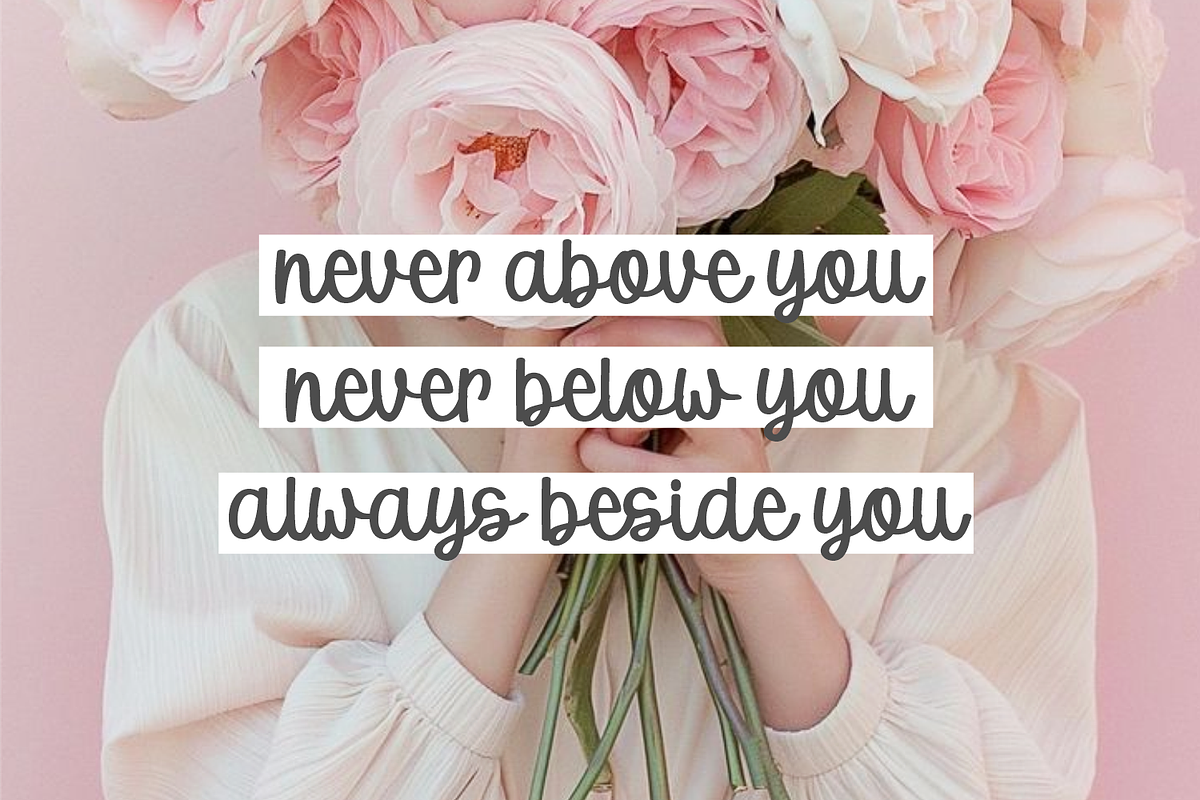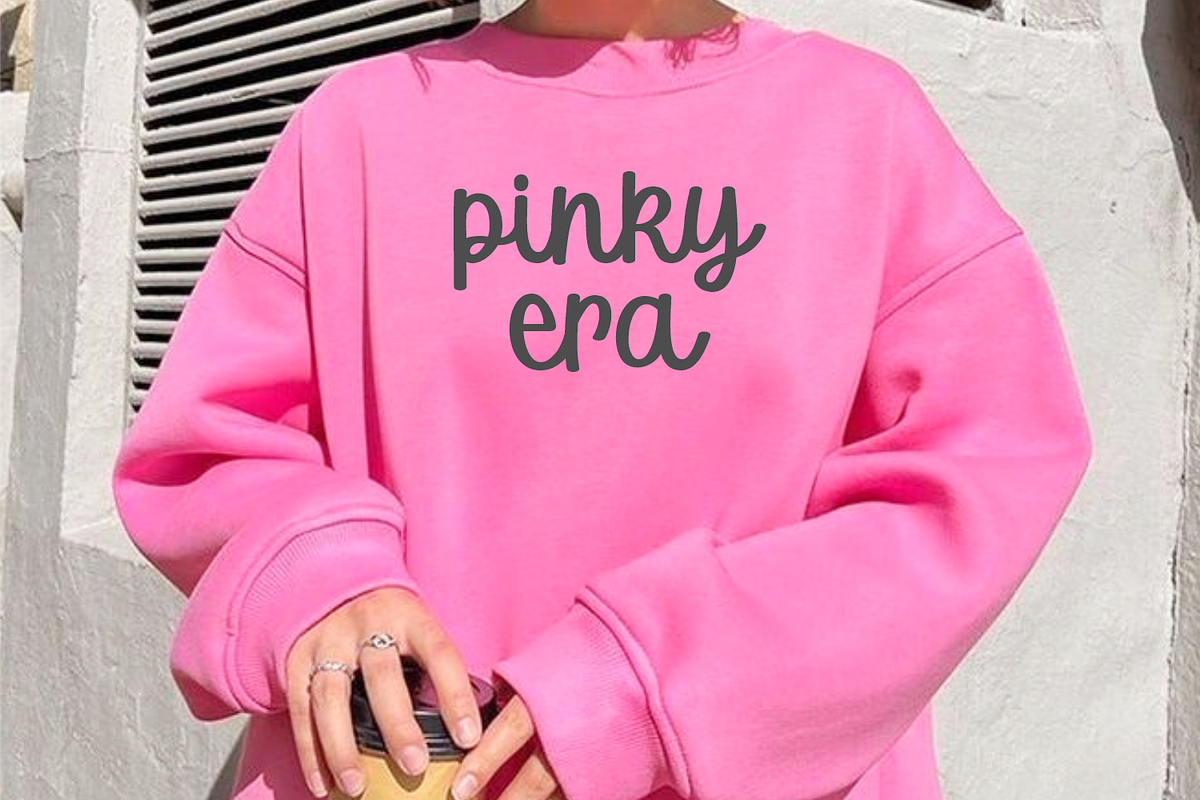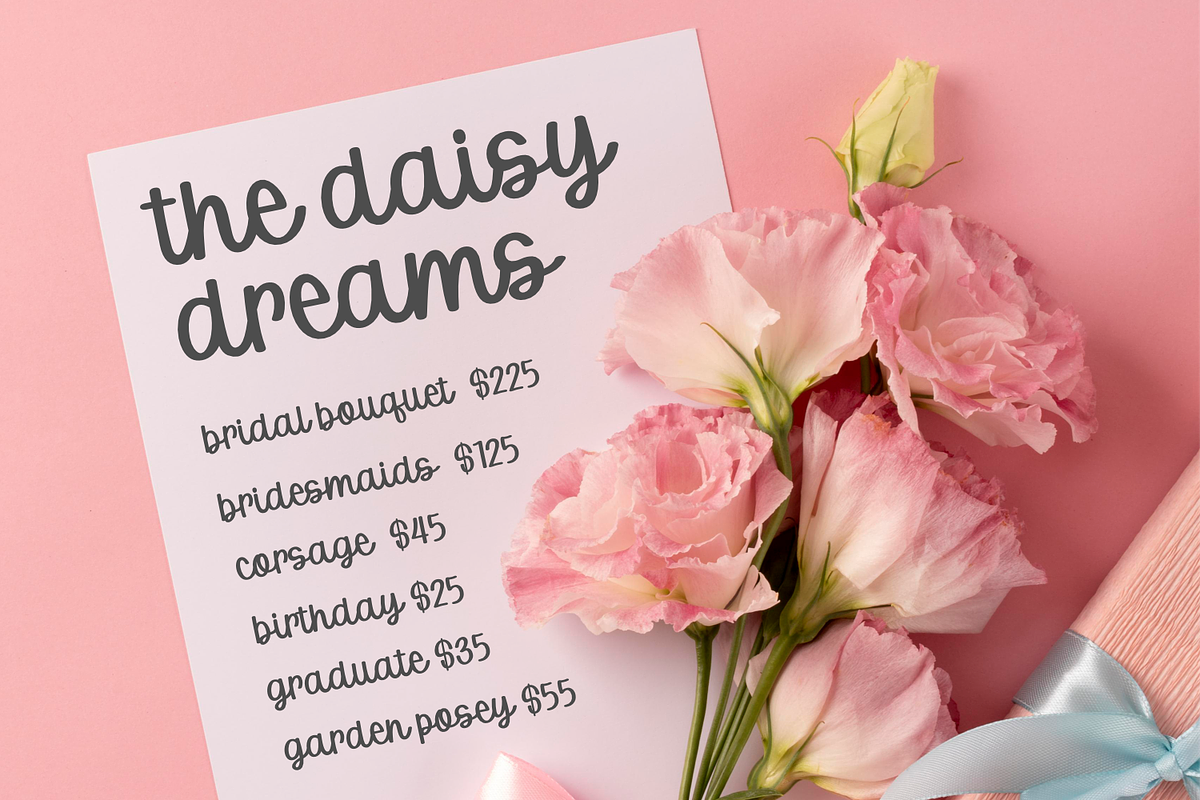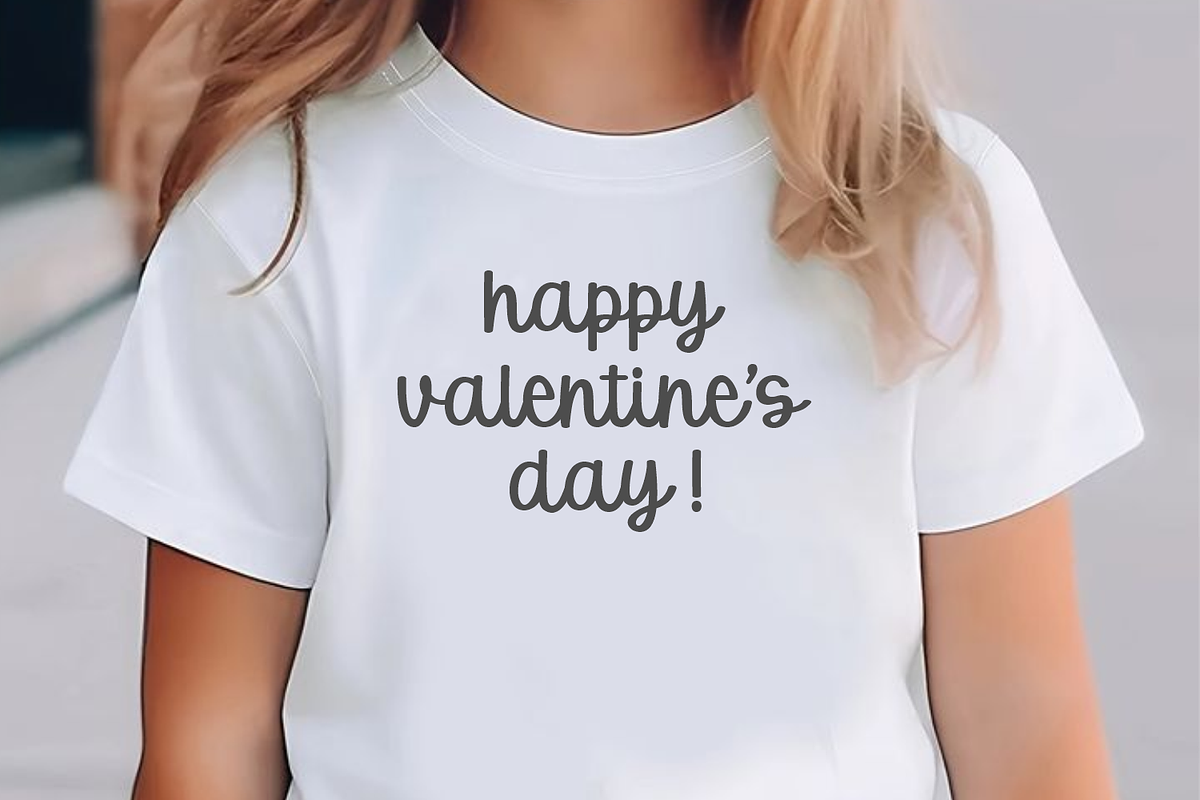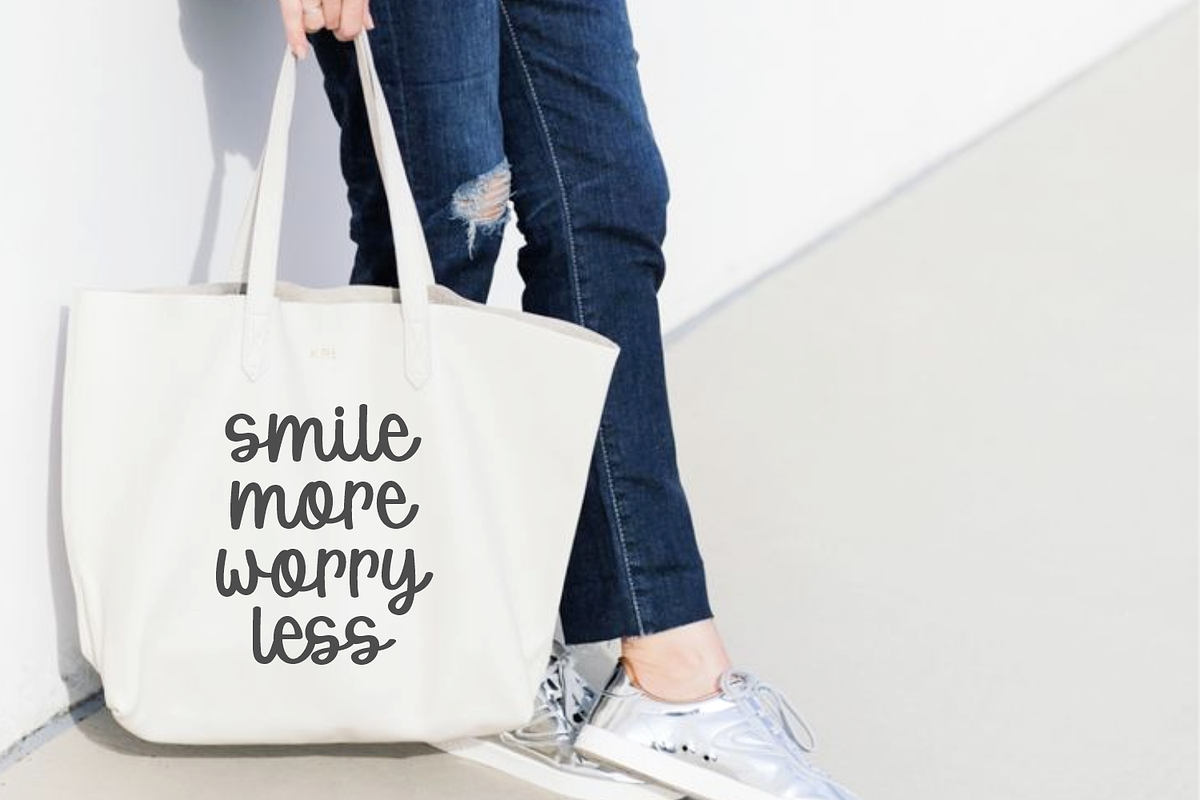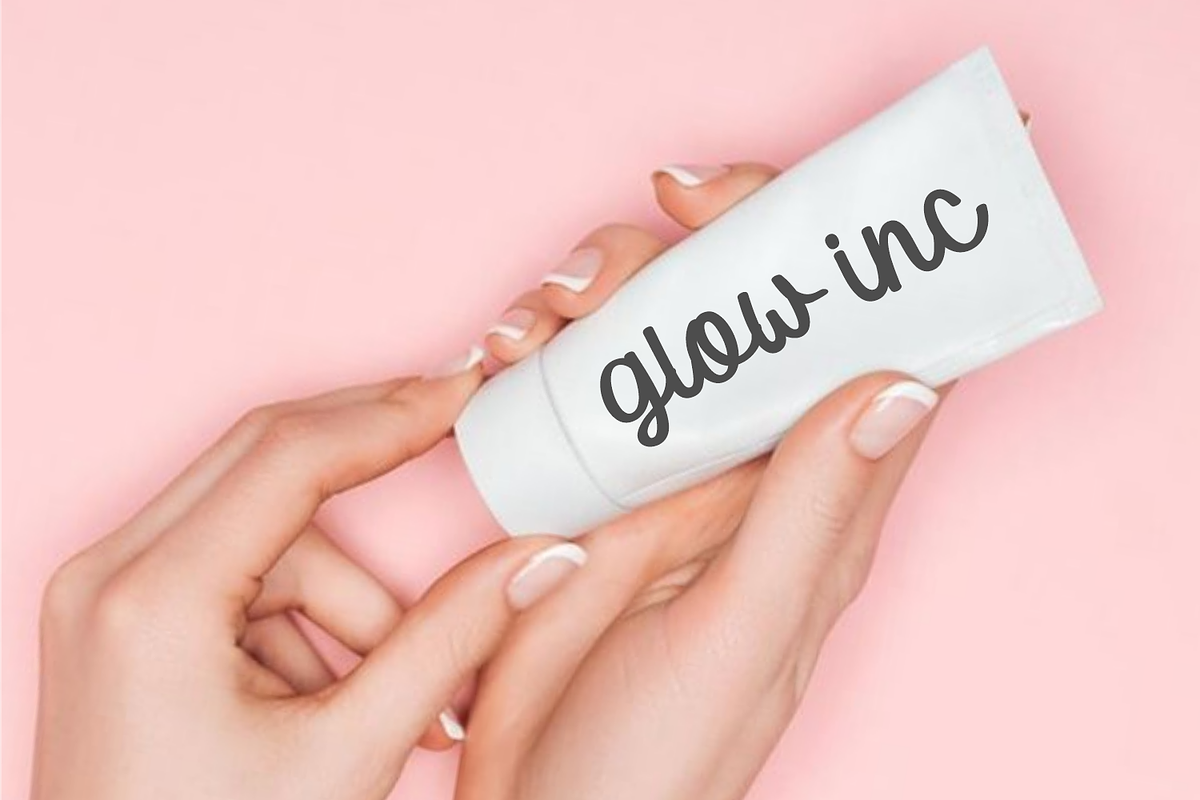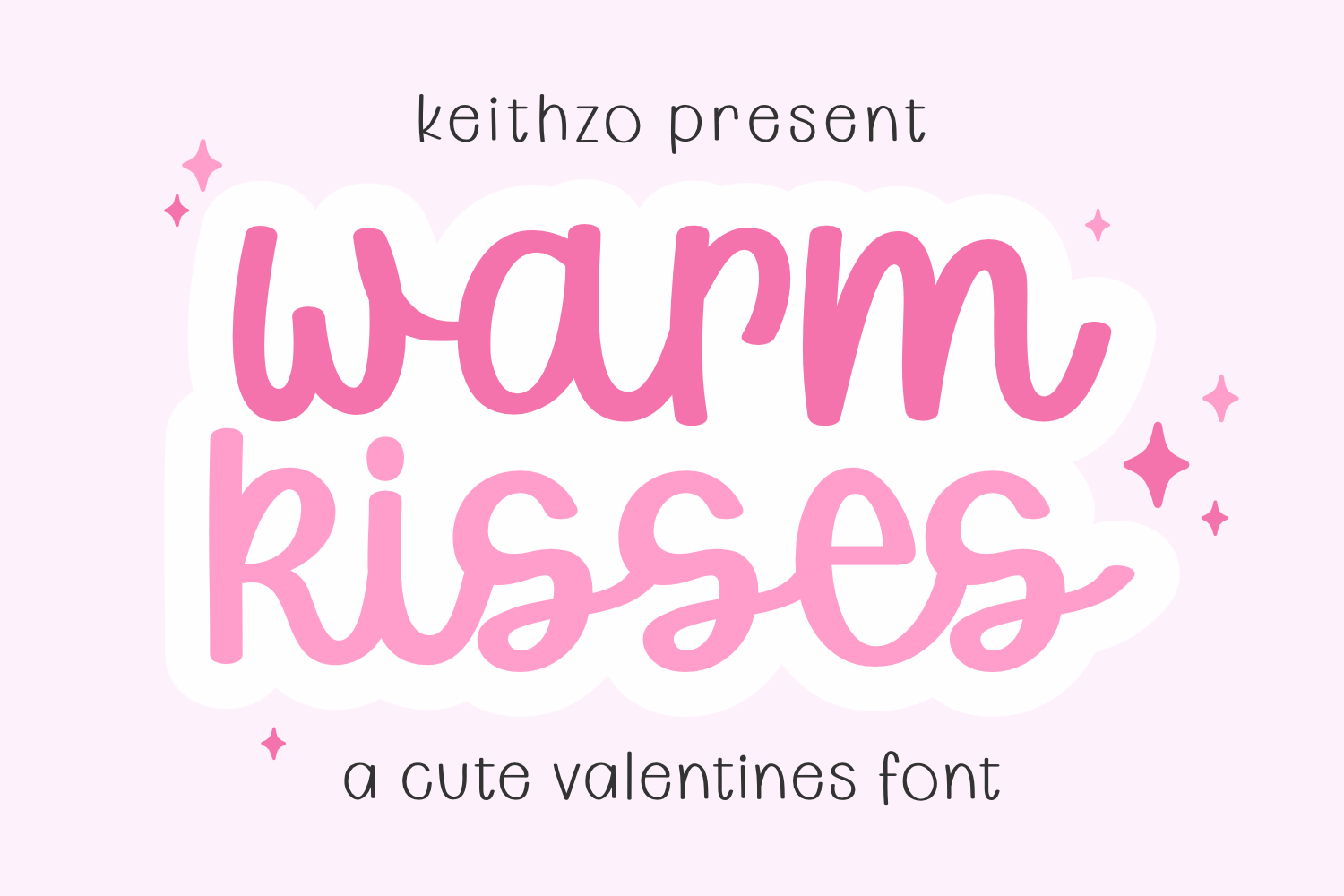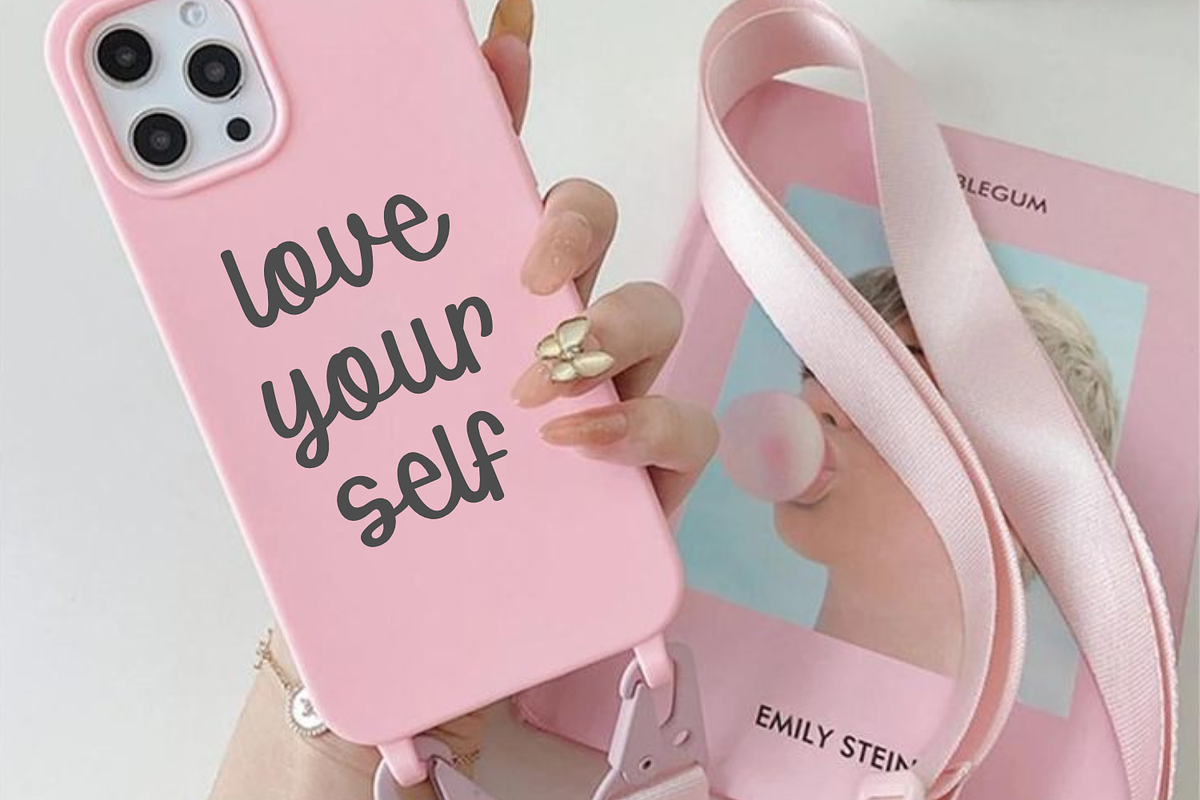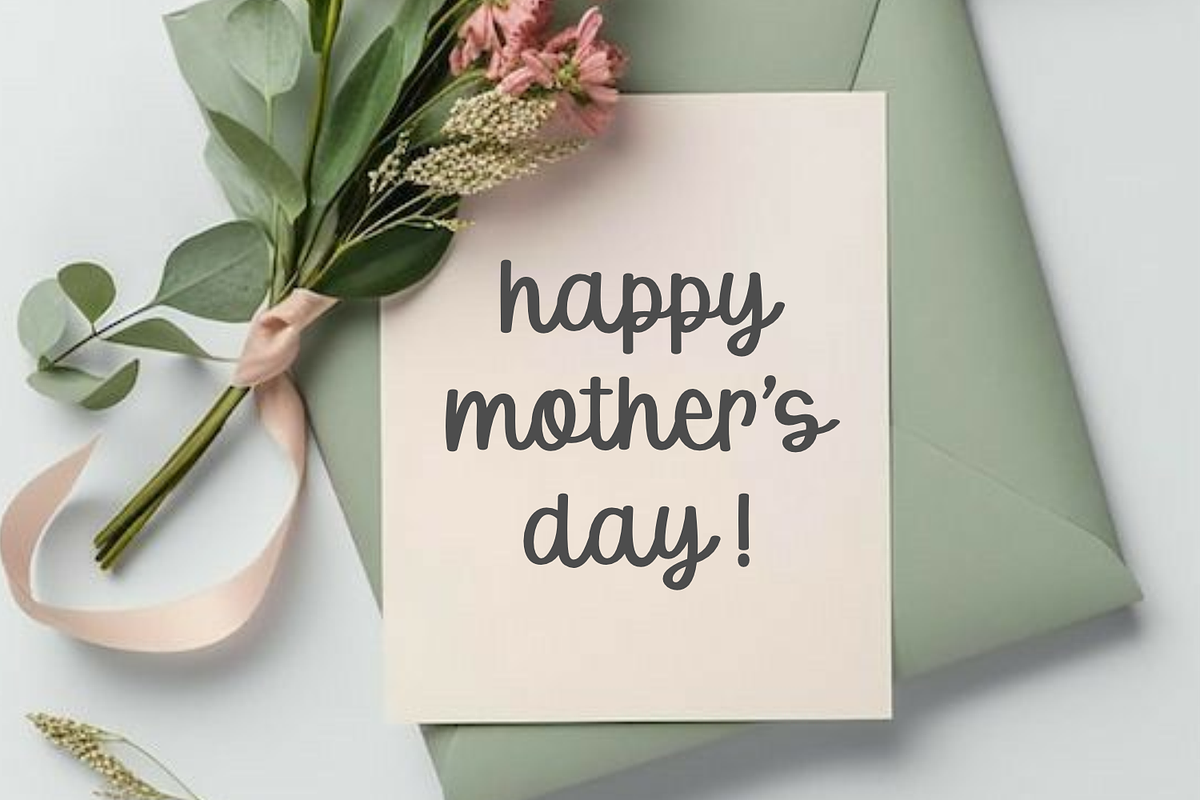
Warm Kisses - Valentines Font
Introducing the Warm Kisses font, meticulously crafted for the celebration of love and romance, specifically for Valentine’s Day. With its contemporary and adorable design, this font effortlessly fits into a range of applications, adding a charming touch to T-shirts, greeting cards, tote bags, hoodies, and even skincare and cellphone cases. The Warm Kisses font is an eloquent expression of affection, turning ordinary items into memorable keepsakes. A quintessential tool for Valentine’s Day festivities and precious moments, the Warm Kisses font infuses every word with warmth and care.